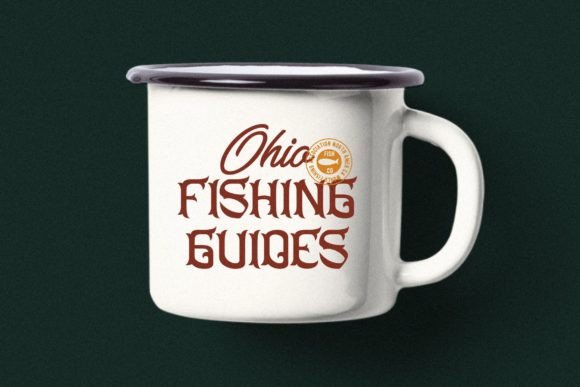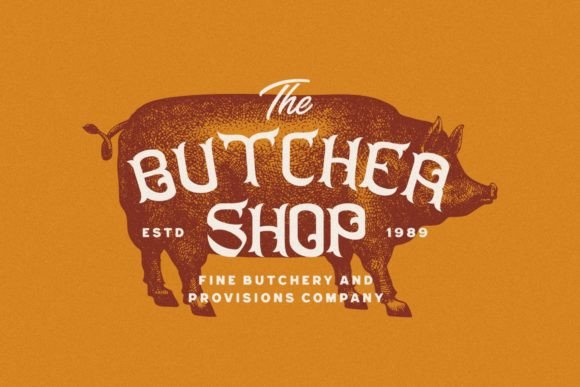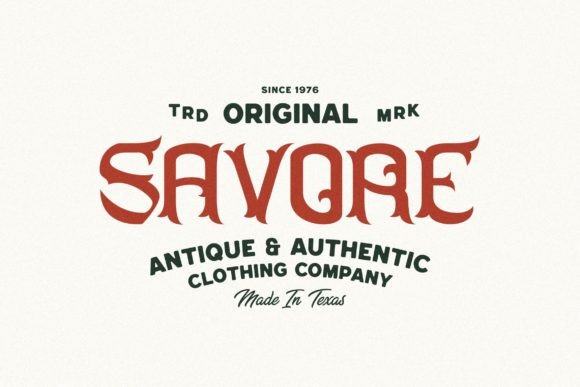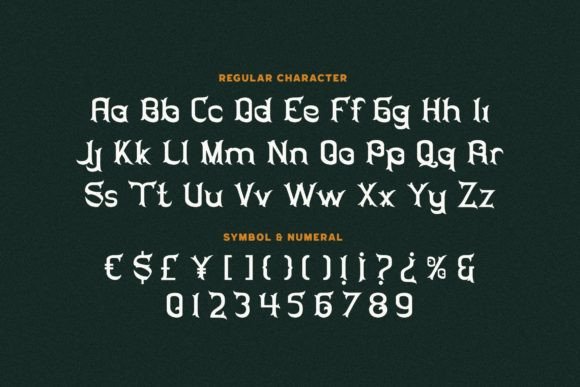
Unleash the Magic of Vintage Typography with Bons Grome Font
You’re browsing through a vintage market, and you stumble upon an old, distressed sign that catches your eye. The unique combination of elegant letters and worn texture sparks your creativity, and you can’t help but think of the perfect project to bring this aesthetic to life. Whether it’s a label for a craft beer or a poster for a retro-themed party, you know exactly what you need – a font that embodies the essence of vintage charm.
Enter Bons Grome Font, a cool and unique vintage display font designed to transport your designs back in time. Perfect for creating labels, headlines, product packaging, or posters, this font is a treasure trove of elegance and sophistication. With its PUA encoding, you can easily access all the glyphs and ligatures, making it a valuable addition to any designer’s toolkit.
- Font Family: Bons Grome
- Character Set: Latin, Cyrillic, Greek, and other languages
- Unique Characteristic: Hand-drawn, playful, and elegant font with a touch of sophistication, suitable for various design projects, including branding, advertising, and editorial content.
Bons Grome Font Review
As a designer, I was excited to dive into the Bons Grome Font, and overall, I have mixed feelings about this font. ✨ First, I love the unique and quirky feel of the font, which adds a touch of personality to any design project. The bold and playful strokes create a fun and eye-catching effect, making it perfect for titles, headings, or any element that needs to stand out.
- Unique and quirky design that adds personality to any design project
- Bold and playful strokes create a fun and eye-catching effect
- Perfect for titles, headings, or any element that needs to stand out
However, ⚠️ there are some limitations to consider. The font can be a bit overbearing, especially when used in large quantities. It may be overwhelming for the reader, and it’s essential to use it sparingly to avoid visual fatigue. Additionally, the font may not be the best choice for body text, as it can be difficult to read in smaller sizes.
Overall, the Bons Grome Font is a great choice for designers looking to add a touch of whimsy and personality to their projects. While it has some limitations, it’s a versatile and fun font that can add a unique touch to any design.
Tips for Getting the Most Out of Bons Grome Font
Use Bons Grome Font for creative projects that require a unique and elegant touch.
Combine Bons Grome Font with other creative elements, such as illustrations and graphics, to add depth and interest to your design.
Experiment with different font sizes and styles to achieve the desired visual effect.
Bons Grome Font is ideal for:
Artistic projects, such as posters and prints